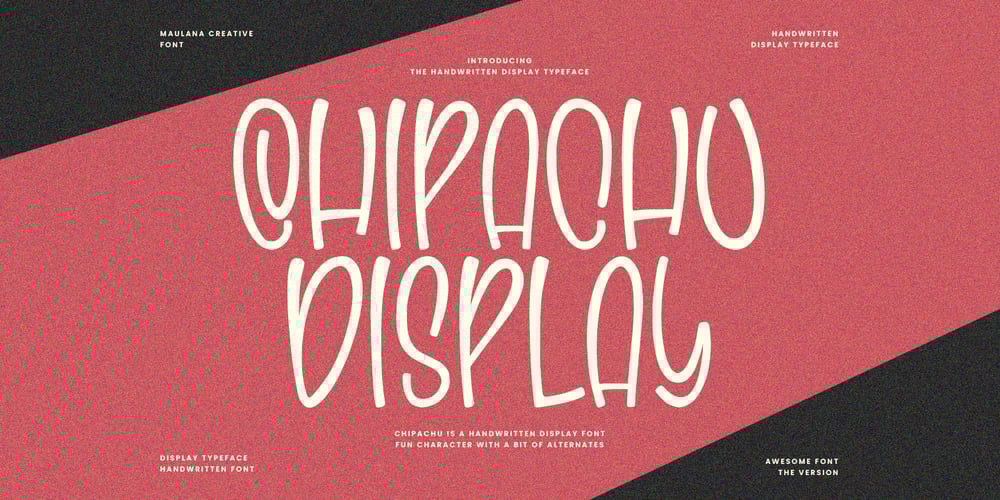
MC Chipachu Font Family was designed by Gilang Maulana and published by Maulana Creative. MC Chipachu contains 1 styles and family package options. Chipachu display font. With medium soft stroke, fun character with a bit of alternates. To give you an extra creative work. Chipachu display font support multilingual more than 100+ language. This font is good for logo design, Social media, Movie Titles, Books Titles, a short text even a long text letter and good for your secondary text font with script or serif. Make a stunning work with Chipachu display font.